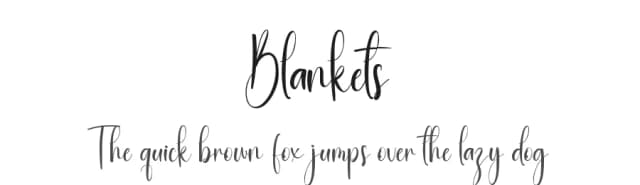
About South Amsterdam Font
South Amsterdam Specifications
| Font Family | South Amsterdam |
| Full Name | South Amsterdam |
| Glyph Count | 136 glyphs |
South Amsterdam supports 209 languages.
South Amsterdam Font is a script font that shines as a display or heading face. Pair it with a clean sans-serif or serif font for body text β the contrast creates a clear hierarchy while the two styles stay balanced and easy to read.
South Amsterdam Font
by Kateeng Ciu